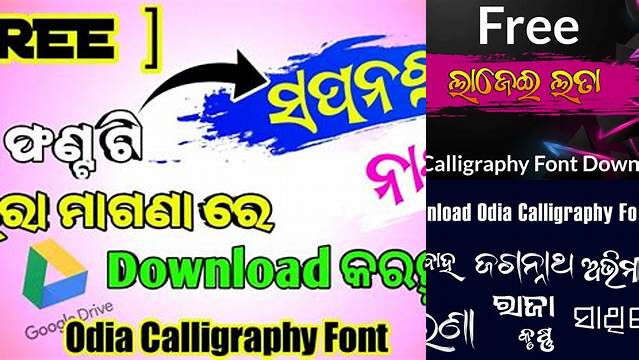
Understanding Odia Calligraphy
Odia calligraphy, deeply rooted in the cultural heritage of Odisha, India, is an exquisite art form that transforms the written word into visual poetry. The Odia script, also known as Kalinga script, boasts a unique rounded appearance, setting it apart from other Indic scripts. Historically, Odia calligraphy was primarily used in religious texts, royal decrees, and literary works. The curves and flourishes in the script added an element of grace and sophistication, making it an integral part of Odisha’s artistic identity. Calligraphers, or “Likhakas,” held esteemed positions in society, often patronized by royalty and religious institutions.
In modern times, Odia calligraphy continues to thrive, finding applications in graphic design, branding, and digital media. Its elegant forms lend themselves beautifully to invitations, posters, and other creative projects. The advent of digital fonts has made Odia calligraphy more accessible than ever, allowing designers and enthusiasts to incorporate its beauty into their work without the need for traditional tools and skills. The digitization of Odia calligraphy fonts ensures that this ancient art form remains relevant and continues to inspire future generations. For those looking to infuse their projects with a touch of Odia culture, these fonts offer a unique and authentic aesthetic. Understanding the historical and cultural context of Odia calligraphy enhances the appreciation for its artistic value and encourages its preservation.
Why Use Odia Calligraphy Fonts?
Using Odia calligraphy fonts can significantly elevate the aesthetic appeal of your projects, bringing a touch of tradition and elegance. These fonts are not just about writing; they are about creating a visual experience that resonates with cultural richness. Whether you're designing wedding invitations, crafting social media graphics, or developing a brand identity, Odia calligraphy fonts can add a unique and sophisticated flair. The fluid strokes and artistic curves of these fonts capture the essence of Odia culture, making them perfect for projects that aim to convey authenticity and heritage.
Moreover, Odia calligraphy fonts offer versatility in design. They can be used in various contexts, from formal documents to creative artwork. The availability of these fonts in digital formats means that you can easily integrate them into your favorite design software, such as Adobe Photoshop, Illustrator, or even mobile apps. This ease of use makes it accessible for both professional designers and hobbyists to incorporate Odia calligraphy into their work. Furthermore, using these fonts helps in preserving and promoting the Odia language and culture. By showcasing the beauty of the Odia script, you contribute to its visibility and appreciation, ensuring that this ancient art form continues to thrive in the digital age. So, if you’re looking to add a touch of cultural elegance to your designs, Odia calligraphy fonts are an excellent choice.
Finding Free Odia Calligraphy Fonts
In conclusion, adding stylish Odia calligraphy fonts to your Android device is a fantastic way to personalize your experience and celebrate the rich cultural heritage of Odisha. By following the steps outlined in this guide, you can safely find, download, and install these fonts, enhancing the visual appeal of your device and adding a touch of elegance to your projects. Remember to always download fonts from trusted sources, be mindful of licensing agreements, and troubleshoot any issues that may arise. With a little patience and attention to detail, you can enjoy the beauty of Odia calligraphy on your Android device. So go ahead, explore the world of Odia fonts, and let your creativity flourish!